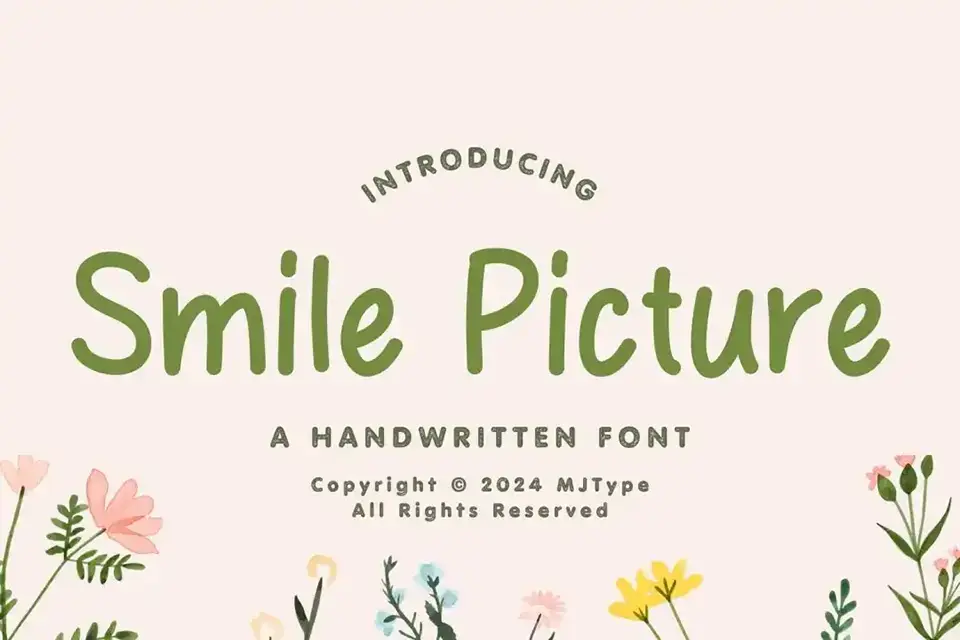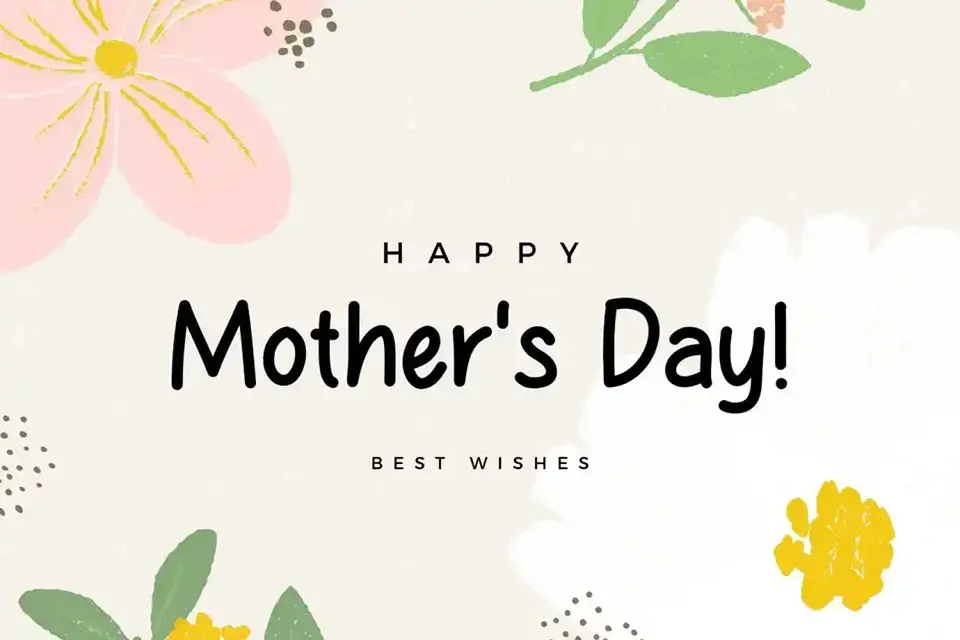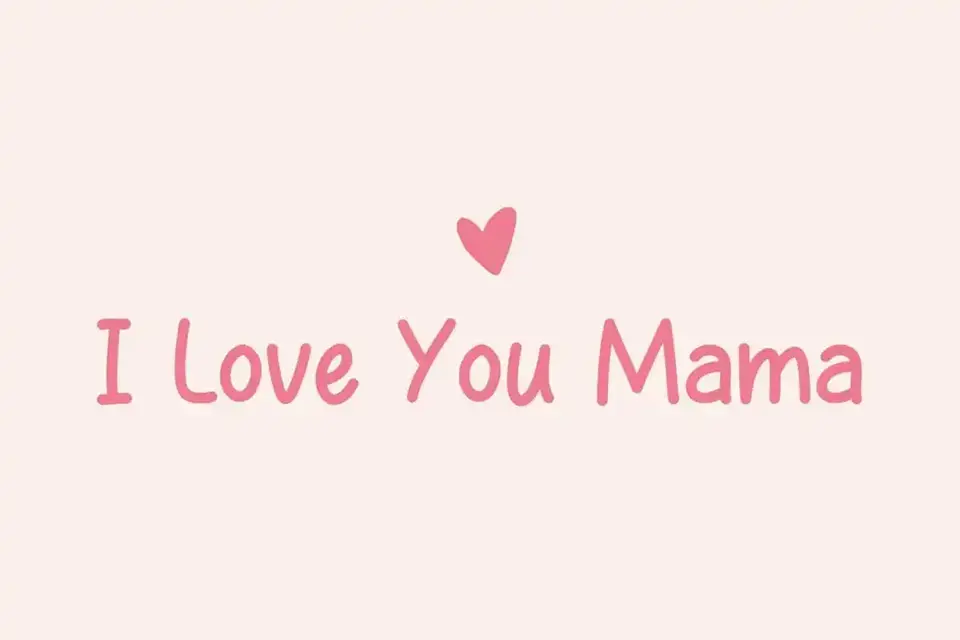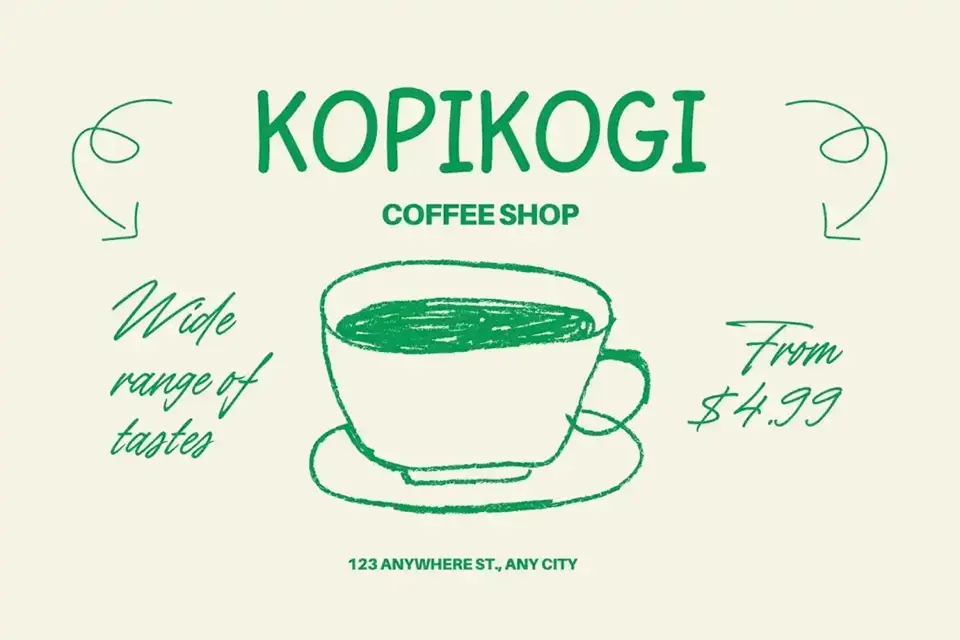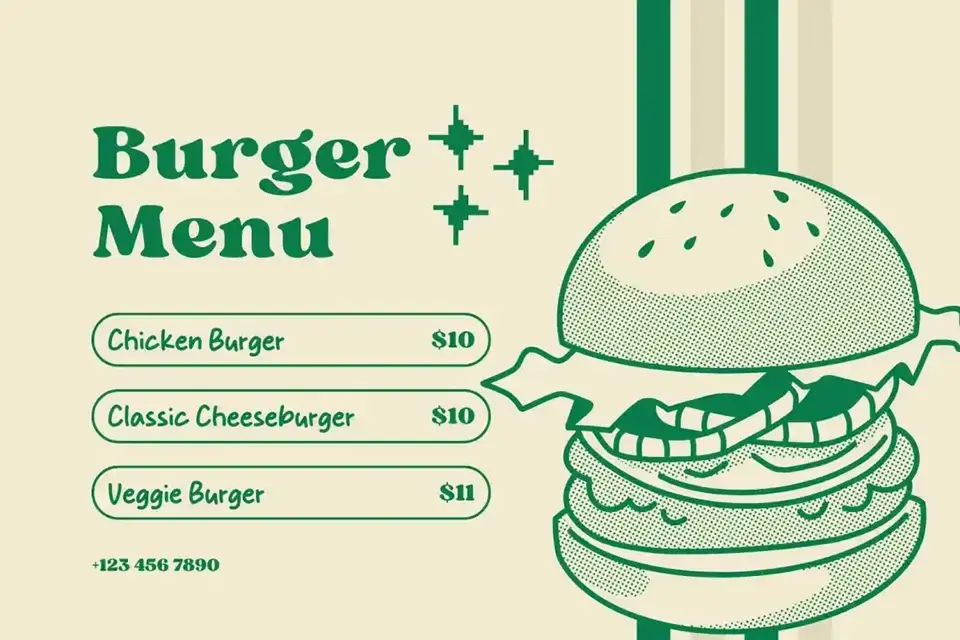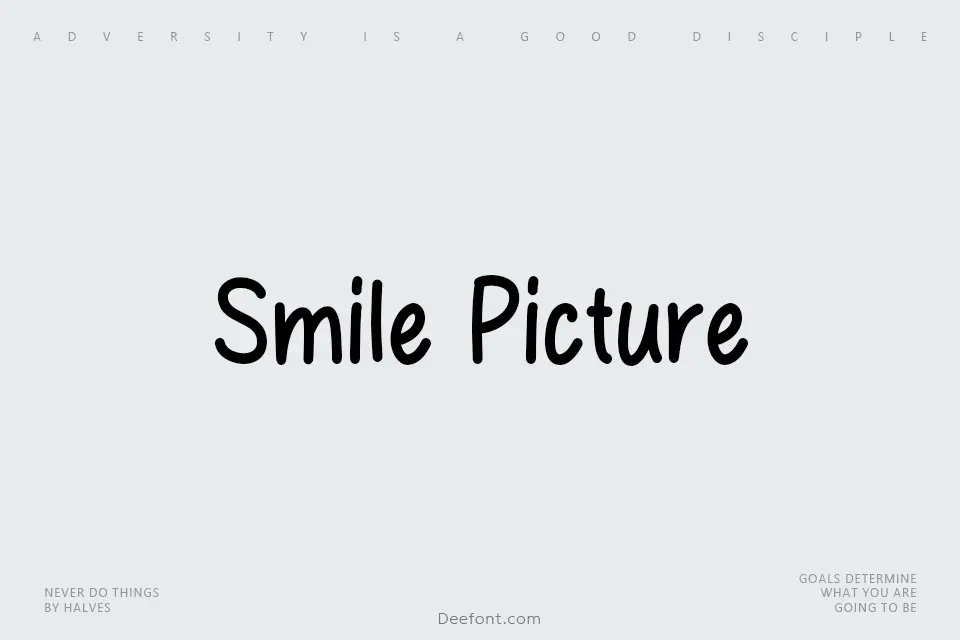
Smile Picture Font
Smile Picture is a charming handwritten display font that brings warmth and playfulness to any creative project. Featuring soft, friendly letterforms with organic brush strokes and a naturally flowing aesthetic, this typeface excels at conveying approachable, human-centered design. Ideal for wedding invitations, greeting cards, poster headlines, logo designs, social media graphics, and product packaging, Smile Picture combines contemporary appeal with casual elegance. The font’s 226 glyphs include uppercase and lowercase letters, numerals, and punctuation marks, making it versatile for both display and decorative applications across digital and print media.